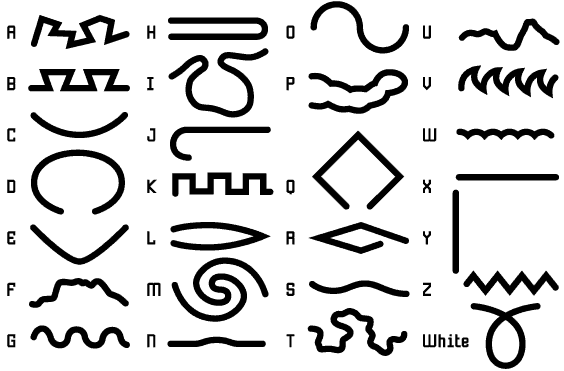
Former printer-typographer
and visual artist Guy Rombouts (1949) has strong feelings about
the relationship between form and content in language. He believes
the conventional symbols of the written word are purely arbitrary
and inadequate for expressing certain ideas and feelings.
Rombouts' fascination with this inadequacy has led him
to develop his own more expressive system of written
language. He has taken the 26 letters of the alphabet and created
replacements with new shapes. For instance, an angular line stands
for A, a curve for C. a zigzag for Z, etc. By combining these lines
into word-polygons, Rombouts has created a writing system that makes
language look like a continuous flow and, he claims, gives it another,
new reality.
Romboutese is the artists own pictorial language,
whose applications he claims to be boundless. He has extended the
alphabets visual aspect by providing each of the 26 lines
with its own color (aquamarine, Bordeaux red. etc.) and matching
noise (aha, brrbrr, sshssh, kdoink, etc.)
so that Romboutese can
be appreciated aurally as well as orally.
Much of his work is based on quotations. For the Initiatief
X6 exhibition, held in Gent, Belgium, he designed a complete
classroom in which the tables were English nouns. The seats were
in the form of the quotation ... harden to the object on which
we are sitting, and abstract nouns acquire the firmness of the table.
(Stefan Thennerson, Logic, Labels and Flesh)
At the Bienale 87 in Sao Paulo. Brazil, Rombouts is one of
three artists representing Belgium. Rombouts will be showing both
with his classroom and a computer installation that generates Romboutese,
for which Teun de Lange wrote the program on an Apple 11 GS. The
program first processes the language, and then uses a turtle
to draw the word-picture on a large piece of paper. Rombouts sees
the program as a way to let other people use his very idiosyncratic
pictorial language creatively too.